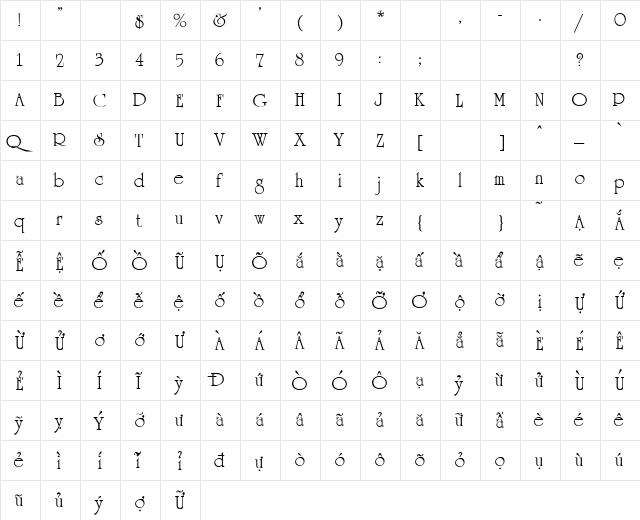
VI University Regular
Design Context for VI University Typeface
VI University is a composed and adaptable typeface that performs quietly and consistently across a wide range of design contexts.